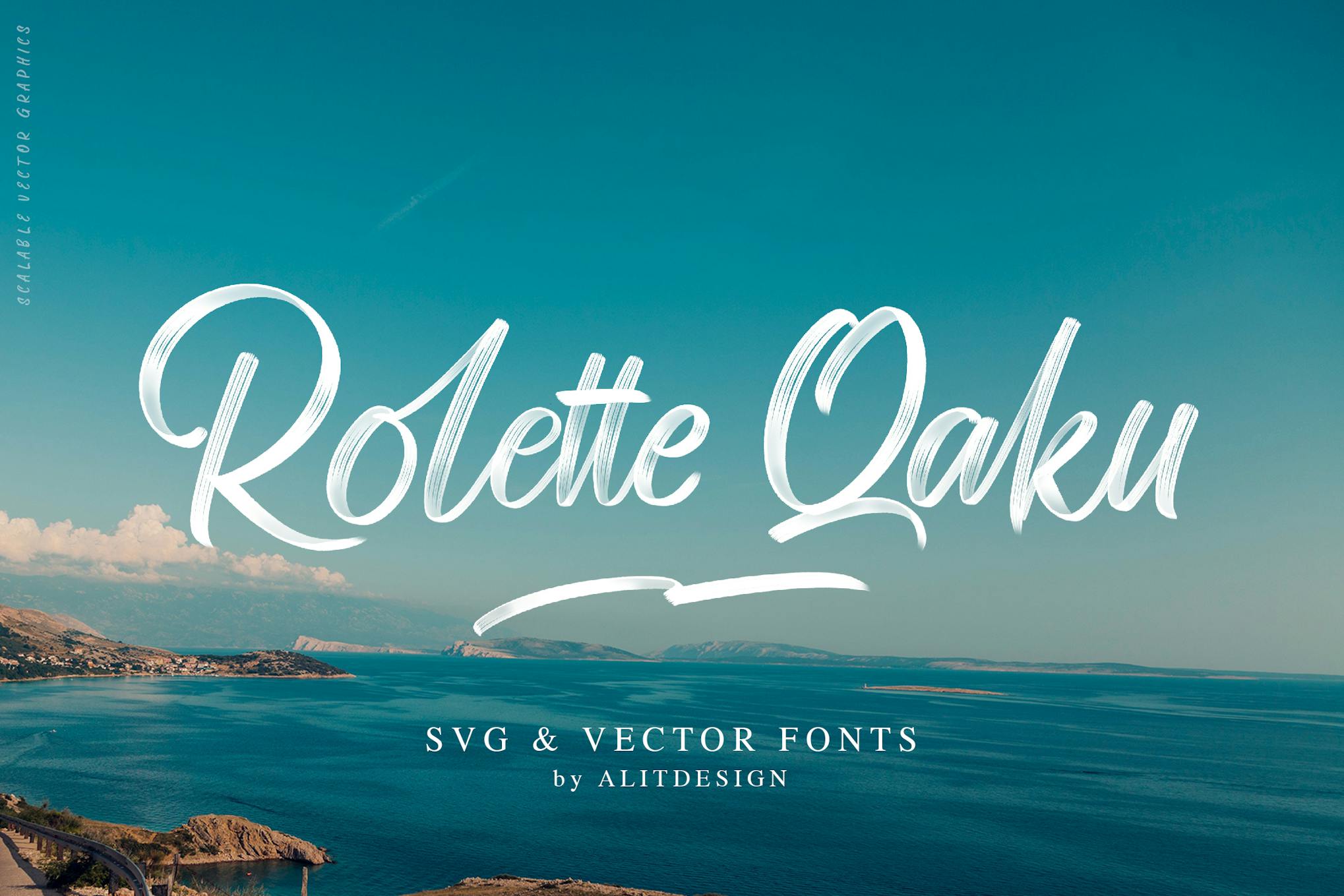
Rollete Qaku SVG & Regular Font
Rollete Qaku SVG Regular Font revolutionizes digital design projects, interactive web applications, scalable vector graphics, animated logo designs, responsive website interfaces, dynamic mobile applications, digital art installations, vector-based illustrations, modern app interfaces, interactive presentations, SVG animation projects, and cutting-edge digital marketing campaigns where scalable typography and technical precision create flawless cross-platform performance.
This innovative typeface generates excitement through its pioneering integration of SVG technology with advanced typography design that creates fonts optimized for digital scalability and interactive applications. Rollete Qaku SVG Regular Font represents the future of digital typography with its vector-based construction that maintains perfect clarity and sharpness at any size or resolution. The font's sophisticated technical approach incorporates scalable vector graphics principles, ensuring optimal performance across all digital platforms while maintaining exceptional visual quality. Its distinctive character reflects the precision and innovation required for modern digital design applications where technical excellence meets creative expression.
The Rollete Qaku SVG Regular Font family features advanced vector-based variations including Regular weight with comprehensive SVG optimization, scalable elements that adapt seamlessly across devices, and technical specifications designed for web and mobile applications. The collection includes vector-optimized character sets, interactive elements compatible with modern web standards, and advanced SVG features such as gradient fills, stroke animations, and responsive scaling capabilities. Technical specifications ensure compatibility with HTML5, CSS3, and modern web development frameworks.
Digital designers and web developers consistently select Rollete Qaku SVG Regular Font Free Download for projects requiring typography that performs flawlessly across diverse digital platforms and screen resolutions. This remarkable typeface excels in applications where technical precision and visual consistency are essential for professional digital experiences. The font's SVG optimization makes it particularly valuable for responsive web design, mobile applications, and interactive digital projects where scalability and performance are critical success factors.
Whether you're developing responsive websites, creating mobile applications, designing interactive digital experiences, or building scalable vector-based projects, Rollete Qaku SVG Regular Font delivers unmatched digital performance. Its ability to maintain perfect clarity across all devices and screen sizes makes it invaluable for modern digital designers who demand both technical excellence and visual sophistication. The font's vector-based architecture ensures your designs will perform optimally in today's multi-device digital landscape while maintaining the professional quality essential for successful digital communications.